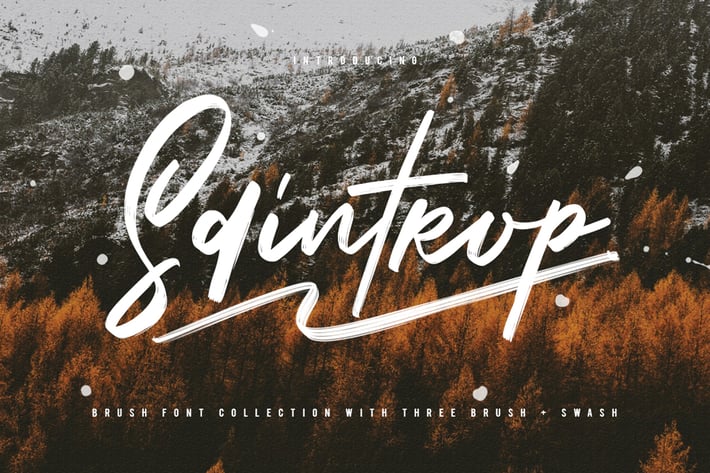
Saintrop Brush Font Collection
Give your designs an authentic brush handcrafted feel. "Saintrop Brush Font" is perfectly suited to signature, stationery, logo, typography quotes, magazine or book cover, website header, clothing, branding, packaging design and more. Included Two Alternates.